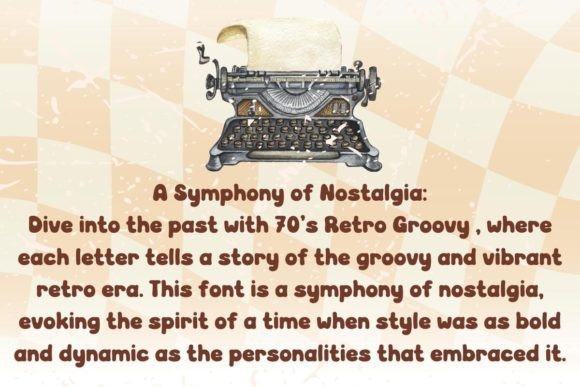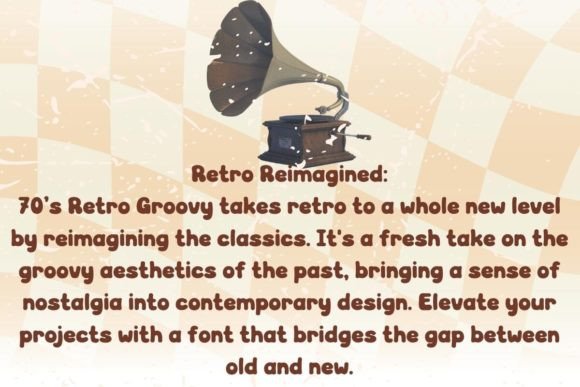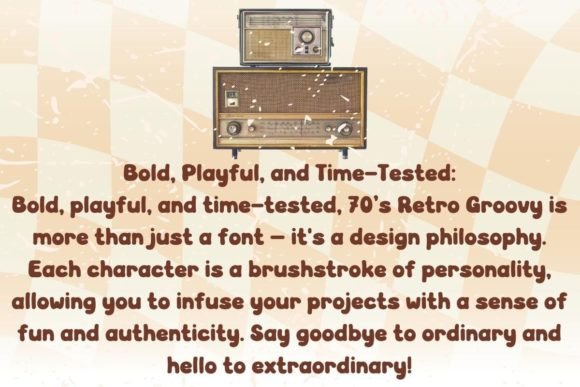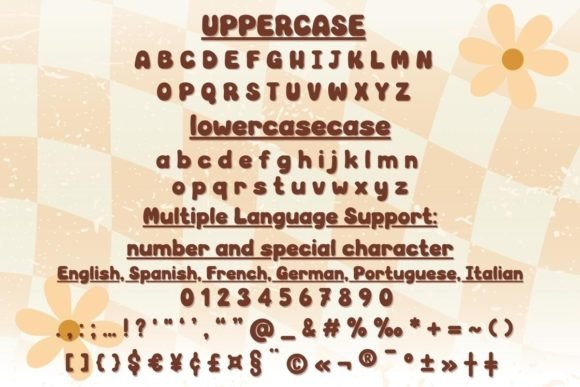
Timeless Elegance, Modern Flair: The Allure of 70’s Retro Groovy Fonts
The 1970s was a decade of vibrant culture, marked by iconic fashion, music, and art. One of the most distinctive elements of this era is its typography, characterized by playful, curvaceous, and expressive fonts. Among these, the 70’s Retro Groovy font stands out for its unique blend of timeless elegance and modern flair. In this article, we’ll explore the charm of 70’s Retro Groovy fonts and why they’re making a comeback in the design world.
The Essence of 70’s Retro Groovy Fonts
70’s Retro Groovy fonts are a nod to the past, inspired by the typography of the 1970s. These fonts are characterized by their flowing curves, rounded edges, and a touch of playfulness. They evoke a sense of nostalgia, transporting us back to an era of disco, bell-bottom jeans, and psychedelic posters. The 70’s Retro Groovy font seamlessly combines the elegance of traditional typography with a modern, edgy twist, making it perfect for designers and crafters looking for a font that exudes both style and substance.
Design Elements of 70’s Retro Groovy Fonts
So, what makes 70’s Retro Groovy fonts so distinctive? Here are some key design elements:
- Curves and Rounded Edges: 70’s Retro Groovy fonts feature smooth, flowing curves and rounded edges, giving them a soft, approachable feel.
- Playful Strokes: The strokes in these fonts are often playful, with varying thicknesses that add to their whimsical charm.
- Classic Letterforms: 70’s Retro Groovy fonts often draw inspiration from classic letterforms, such as serif and script fonts, but with a modern twist.
- Bright and Bold Colors: These fonts are often paired with bright, bold colors that reflect the vibrant aesthetic of the 1970s.
Why 70’s Retro Groovy Fonts Are Making a Comeback
In recent years, there’s been a resurgence of interest in retro and vintage design elements, including 70’s Retro Groovy fonts. So, why are designers and crafters drawn to these fonts? Here are a few reasons:
- Nostalgia: 70’s Retro Groovy fonts evoke a sense of nostalgia, reminding us of a bygone era.
- Unique Style: These fonts offer a distinctive style that’s hard to find in modern typography.
- Versatility: 70’s Retro Groovy fonts can be used in a wide range of design projects, from posters and logos to packaging and digital media.
- Timeless Appeal: Despite being inspired by a specific era, 70’s Retro Groovy fonts have a timeless quality that ensures they won’t go out of style anytime soon.
Using 70’s Retro Groovy Fonts in Your Design Projects
Ready to incorporate 70’s Retro Groovy fonts into your design projects? Here are some tips:
- Pair with Modern Elements: Combine 70’s Retro Groovy fonts with modern design elements to create a striking contrast.
- Experiment with Colors: Try pairing these fonts with bold, bright colors to capture the essence of the 1970s.
- Use in Headlines and Titles: 70’s Retro Groovy fonts are perfect for headlines and titles, where their playful, cursive style can shine.
- Add a Personal Touch: Use these fonts to add a personal touch to your designs, whether it’s a handmade craft or a digital project.
The 70’s Retro Groovy font is a timeless and versatile design element that can add a touch of elegance and playfulness to any project. Whether you’re a designer, crafter, or simply someone who appreciates the aesthetic of the 1970s, this font is sure to captivate. With its unique blend of classic and modern elements, the 70’s Retro Groovy font is an excellent choice for anyone looking to add a little nostalgia and flair to their designs.
So, go ahead and get groovy with 70’s Retro Groovy fonts! Explore the world of retro typography and discover the endless possibilities of this iconic font style.